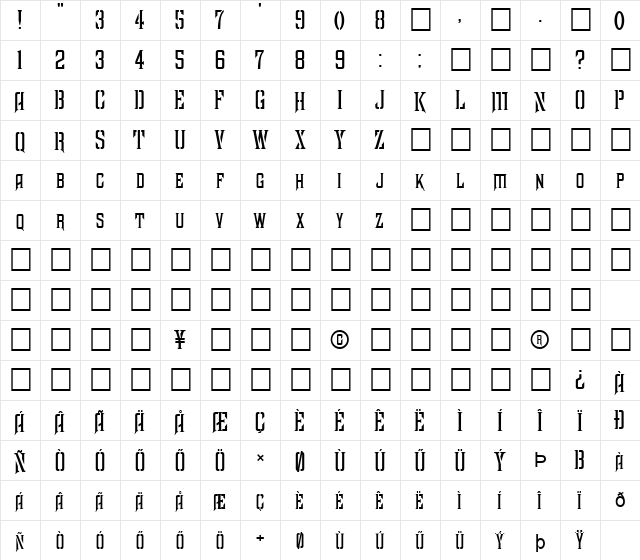
Stencil2 Normal Free Font
Stencil2 Normal
Design Context for Stencil2
Stencil2 borrows the utilitarian aesthetic of stencil lettering, with its characteristic cutaways and no-frills construction lending an industrial edge.